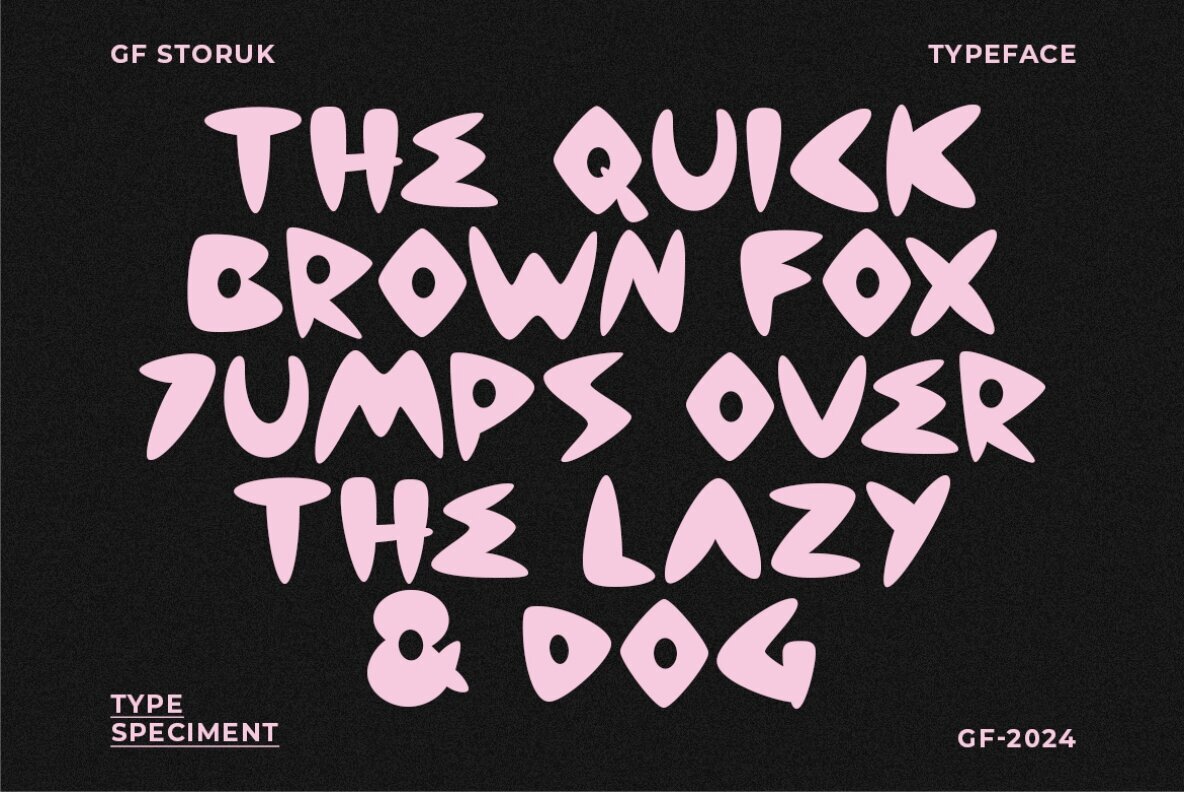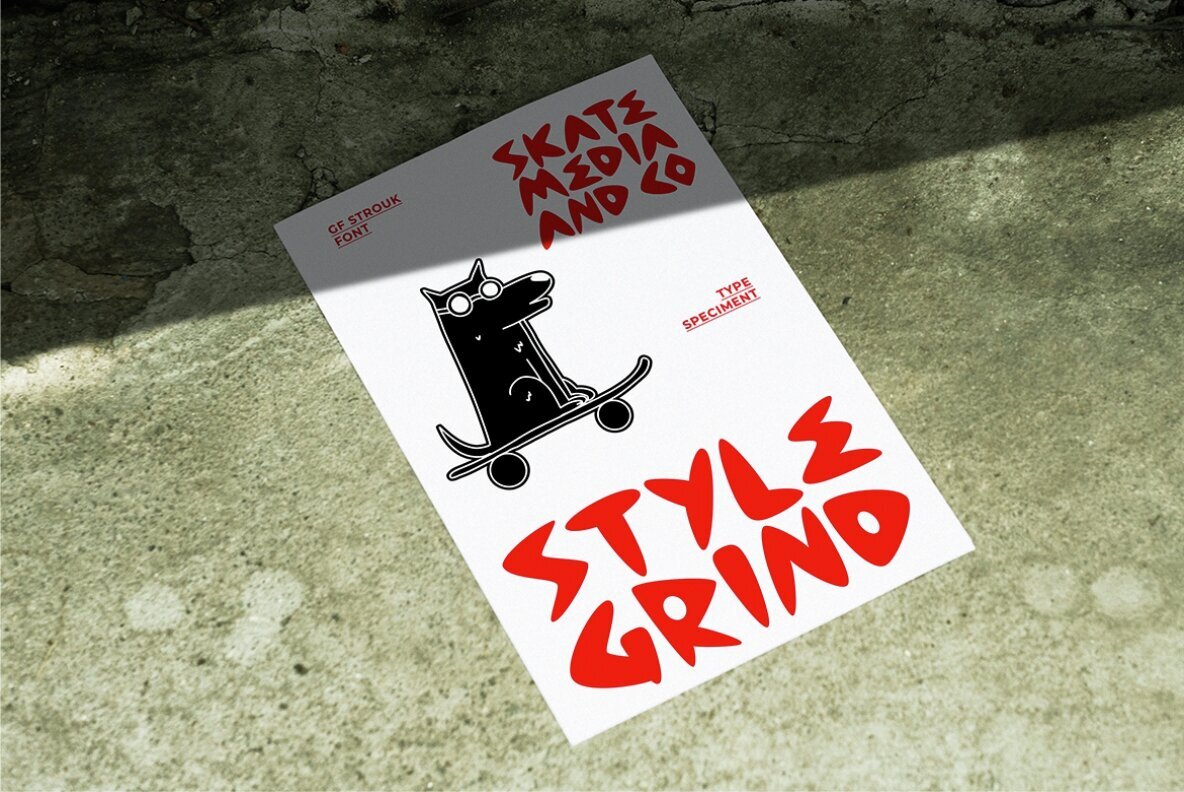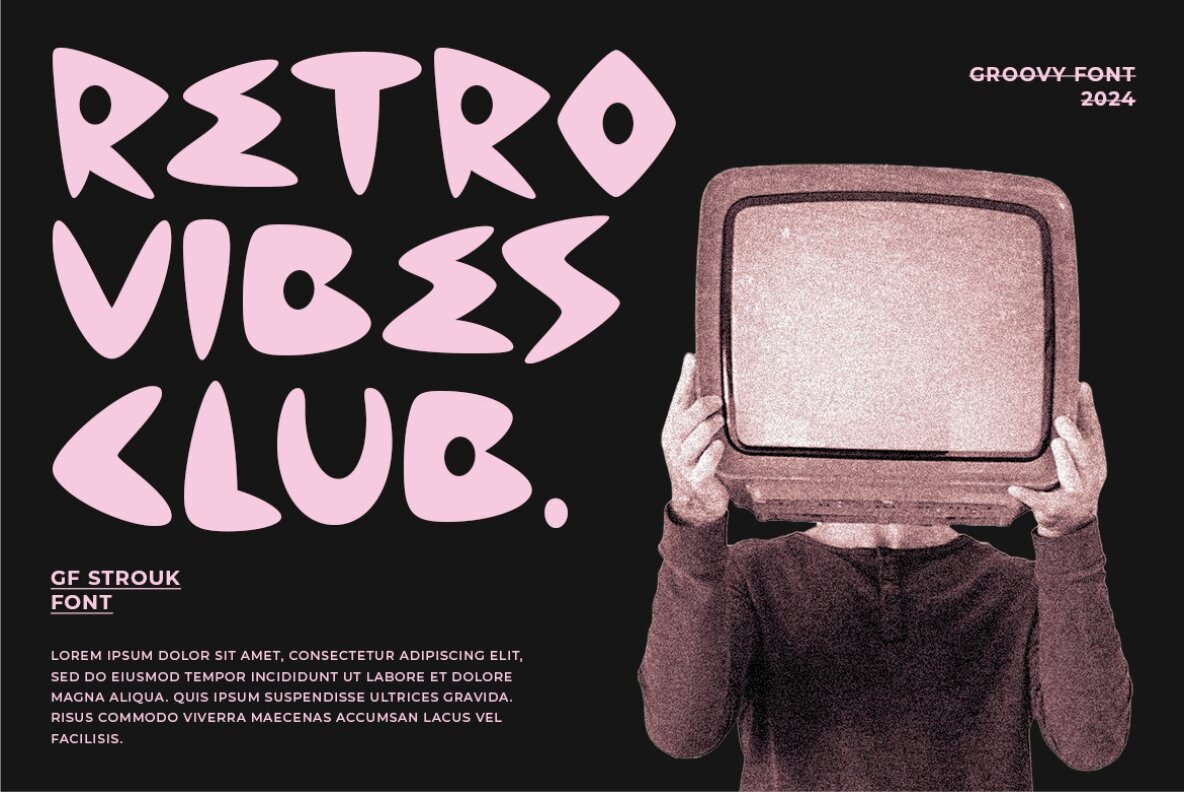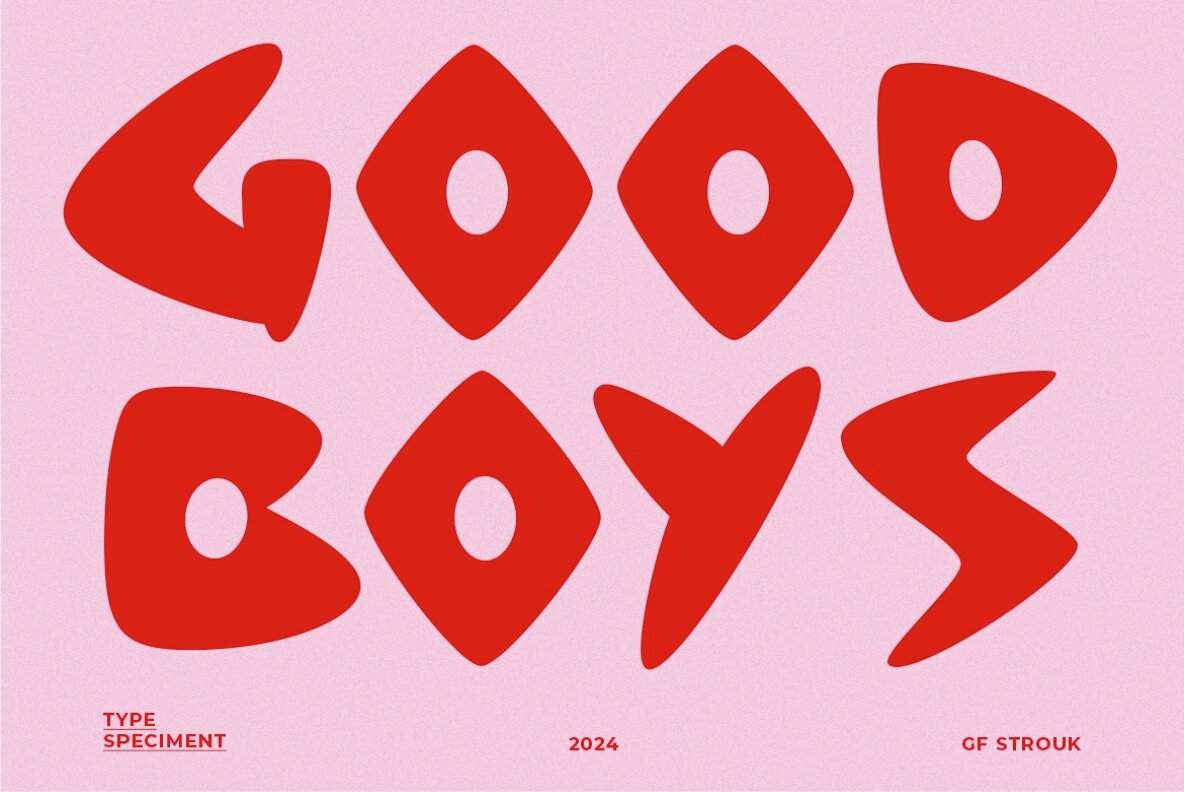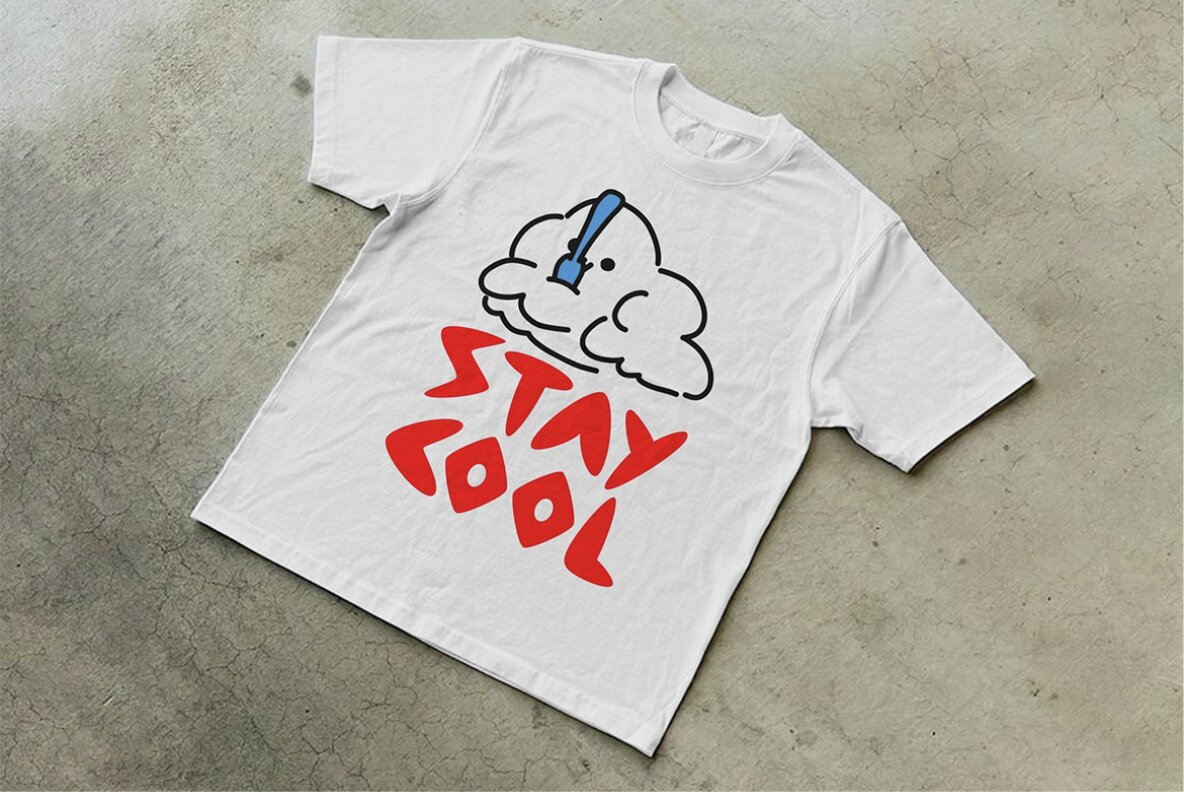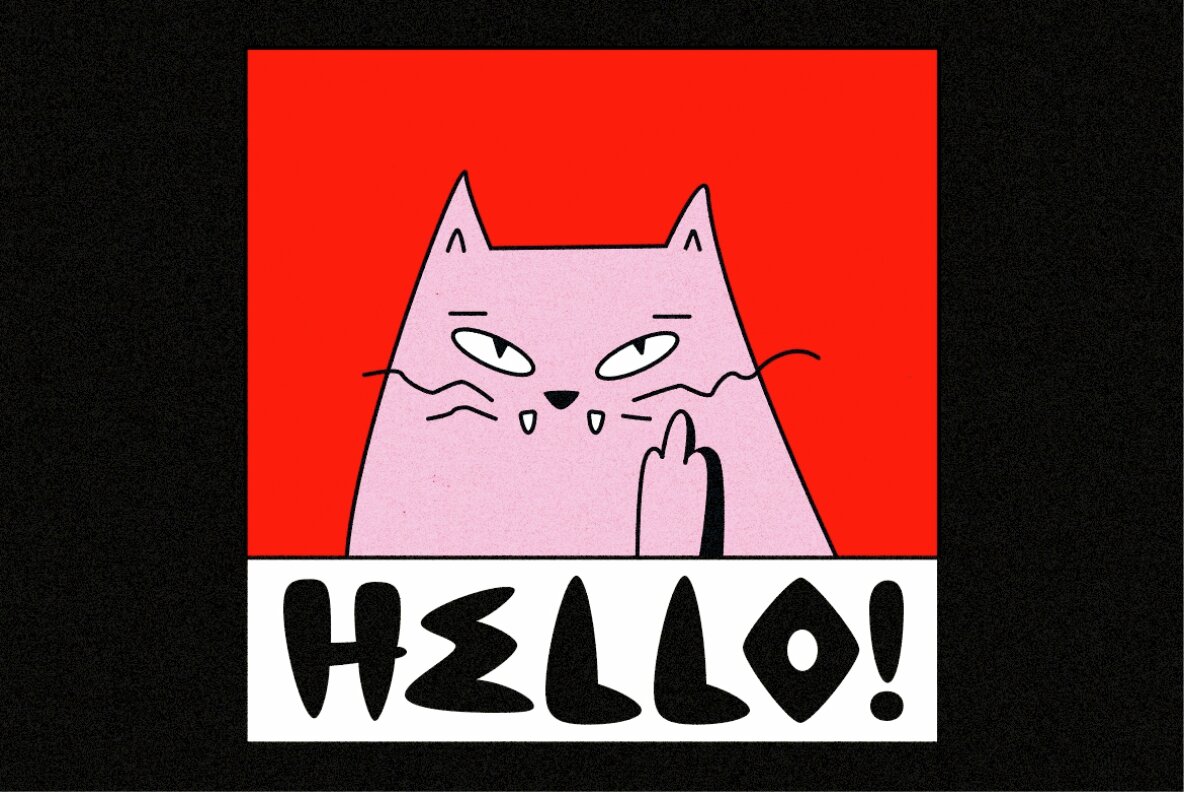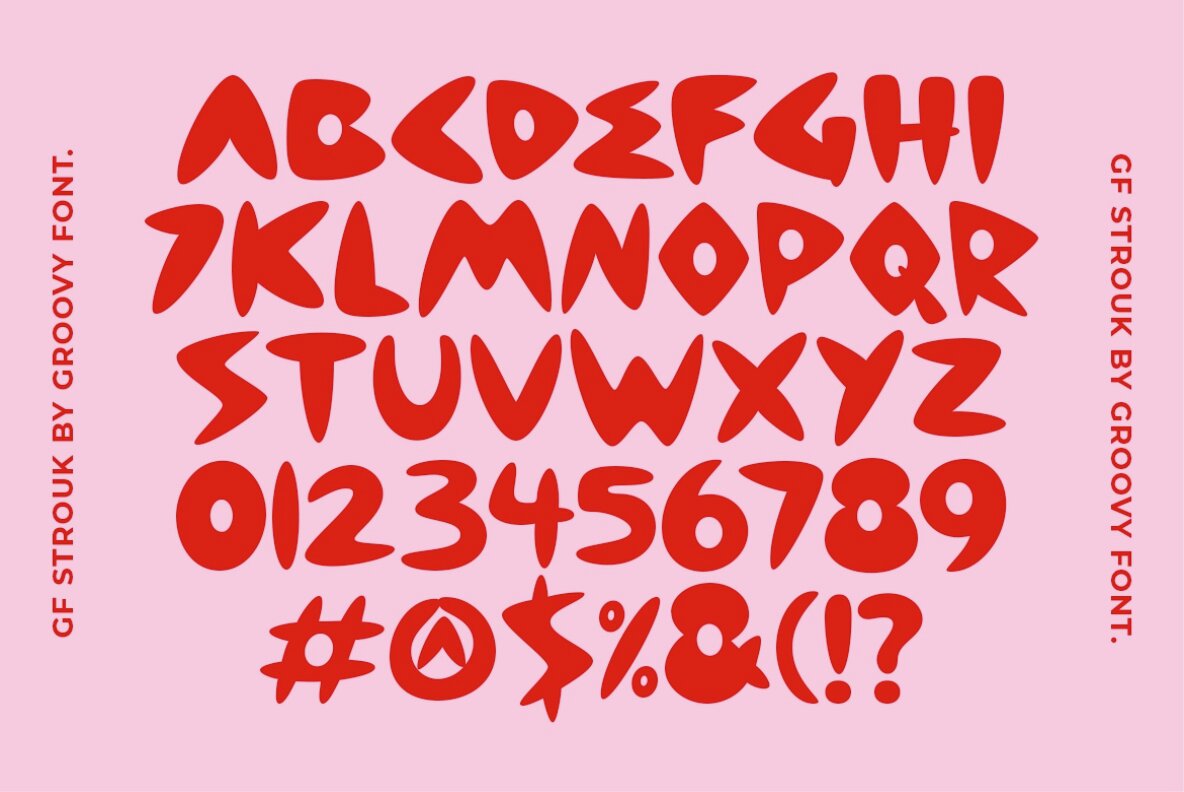
GF Strouk Font
GF Strouk
Groovy Strouk is a captivating display font that brings a retro feel to your design projects. Featuring unique and balanced letterforms, it is perfect for titles, headlines, and all prominent text presentations. Its style stands out without being overly bold, offering a versatile solution for both print and digital media.
This font delivers a nostalgic flair, enhancing any project with its groovy aesthetic. It includes a comprehensive set of characters: uppercase, lowercase, numerals, punctuation, and supports multiple languages, making it adaptable for diverse design needs. Embrace the charm and visual appeal of Groovy Strouk in your creative works.